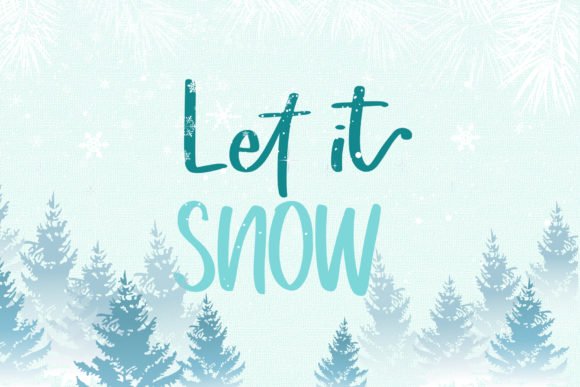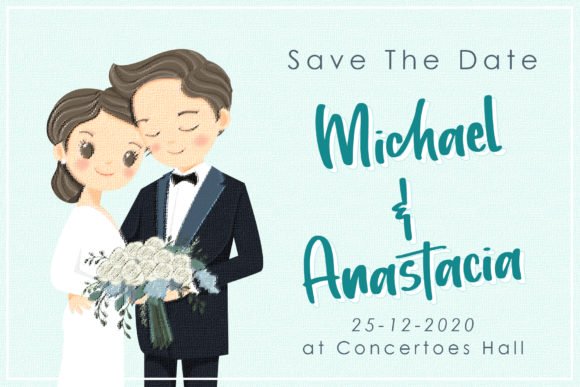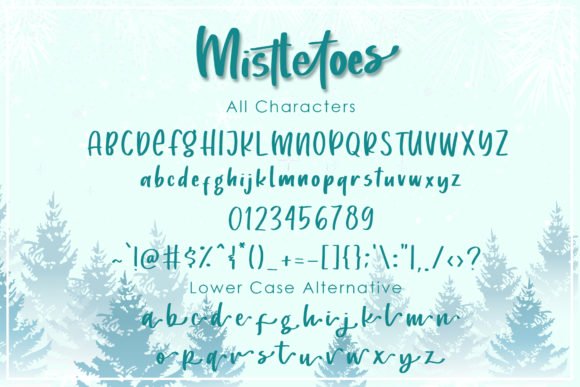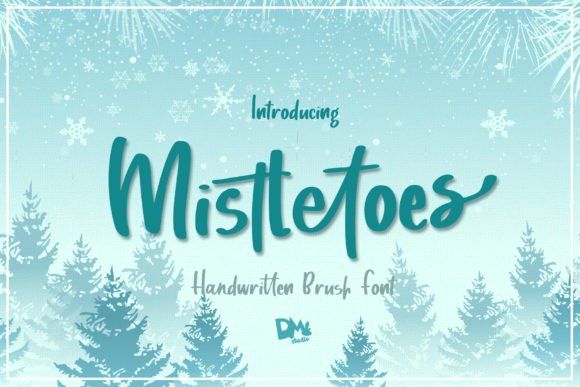
Freebie Wednesday: Mistletoes Font
Mistletoes by dmletter31 is the ideal crafting font for everything Christmas. This handwritten brush font is available for free download on the Creative Fabrica site for the next 5 days.